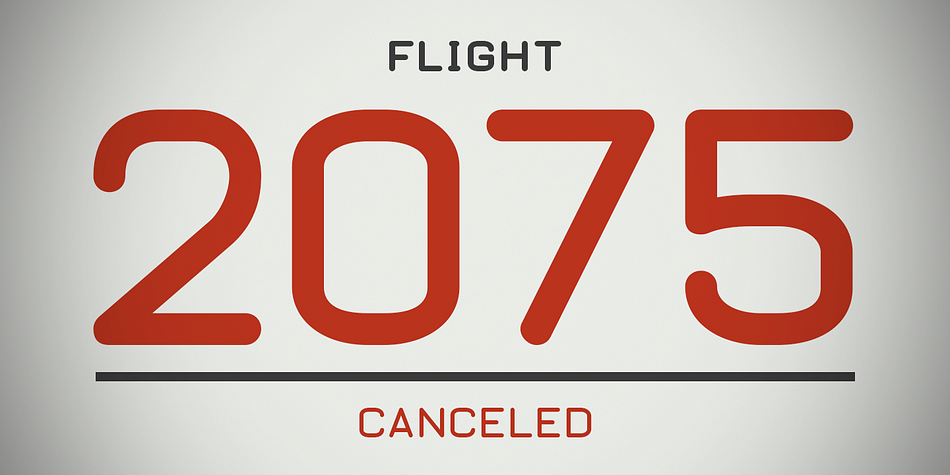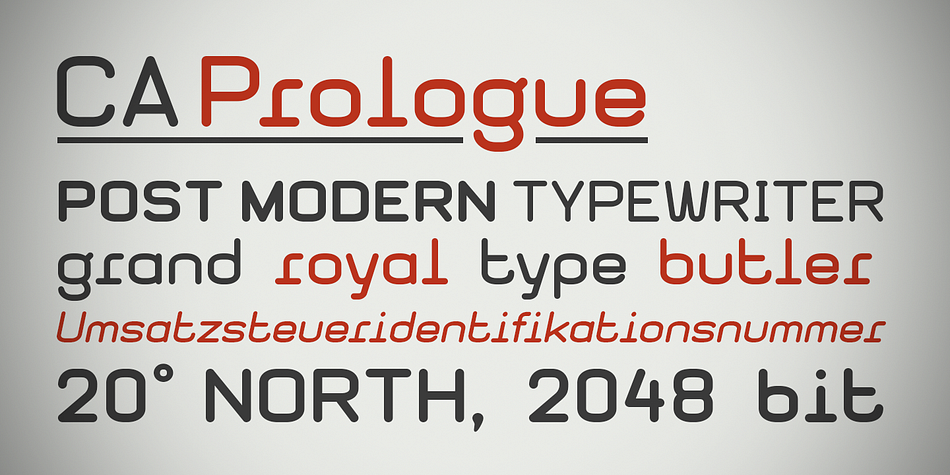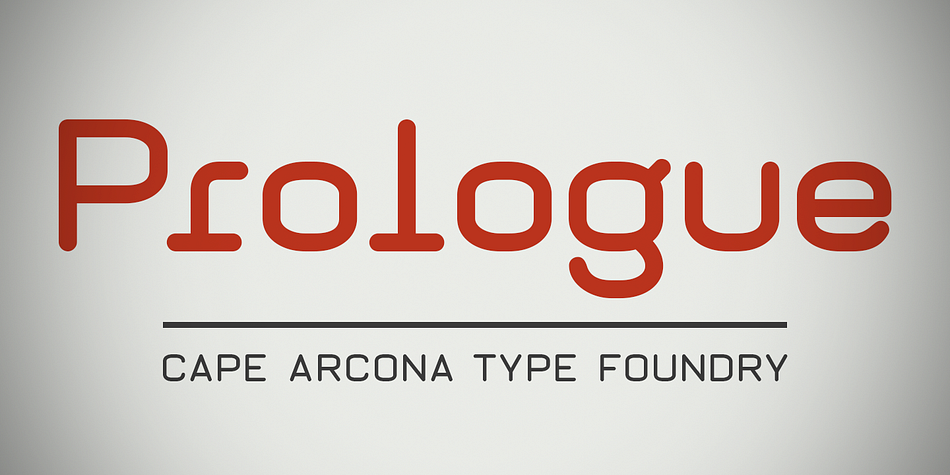
CA Prologue is a sans serif and typewriter font family. This typeface has six styles and was published by Cape Arcona Type Foundry.
CA Prologue was designed to look like a post modern typewriter. With plain and simple upper cases and trickier lower cases. Three weights give a good variety for all kinds of designs and seem especially well made for headlines and short teasers.